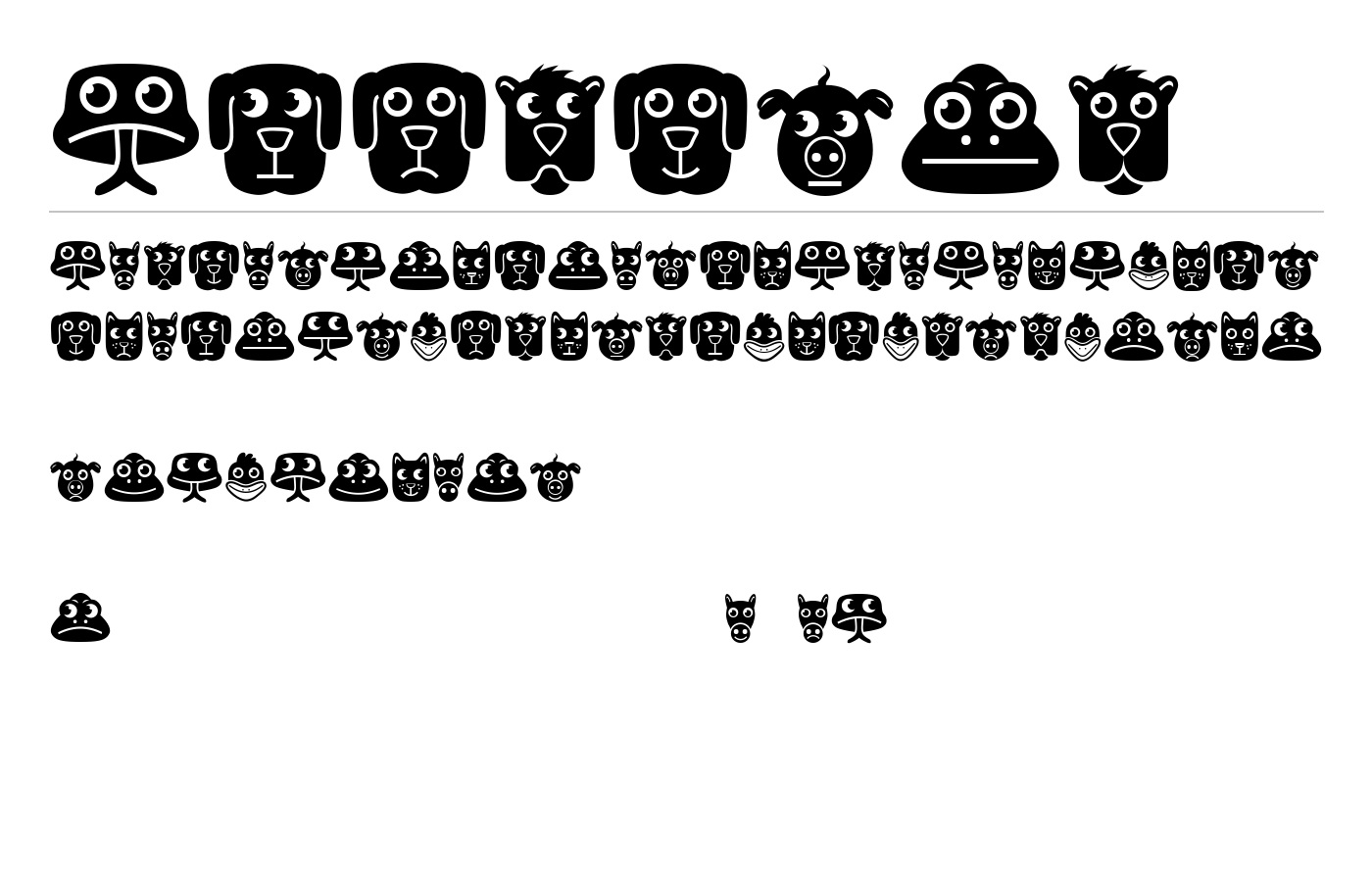
Animales Font is a playful and whimsical symbol typeface featuring a variety of stylized animal faces rendered in bold, solid black shapes. Its simple, rounded forms and expressive eyes give it a friendly, cartoon-like personality perfect for informal, fun, or kid-focused designs. This font works best in logos, children’s books, educational materials, and playful branding where a lighthearted and approachable vibe is desired.
Animales Font
About Animales Font
| Font family | Animales Font |